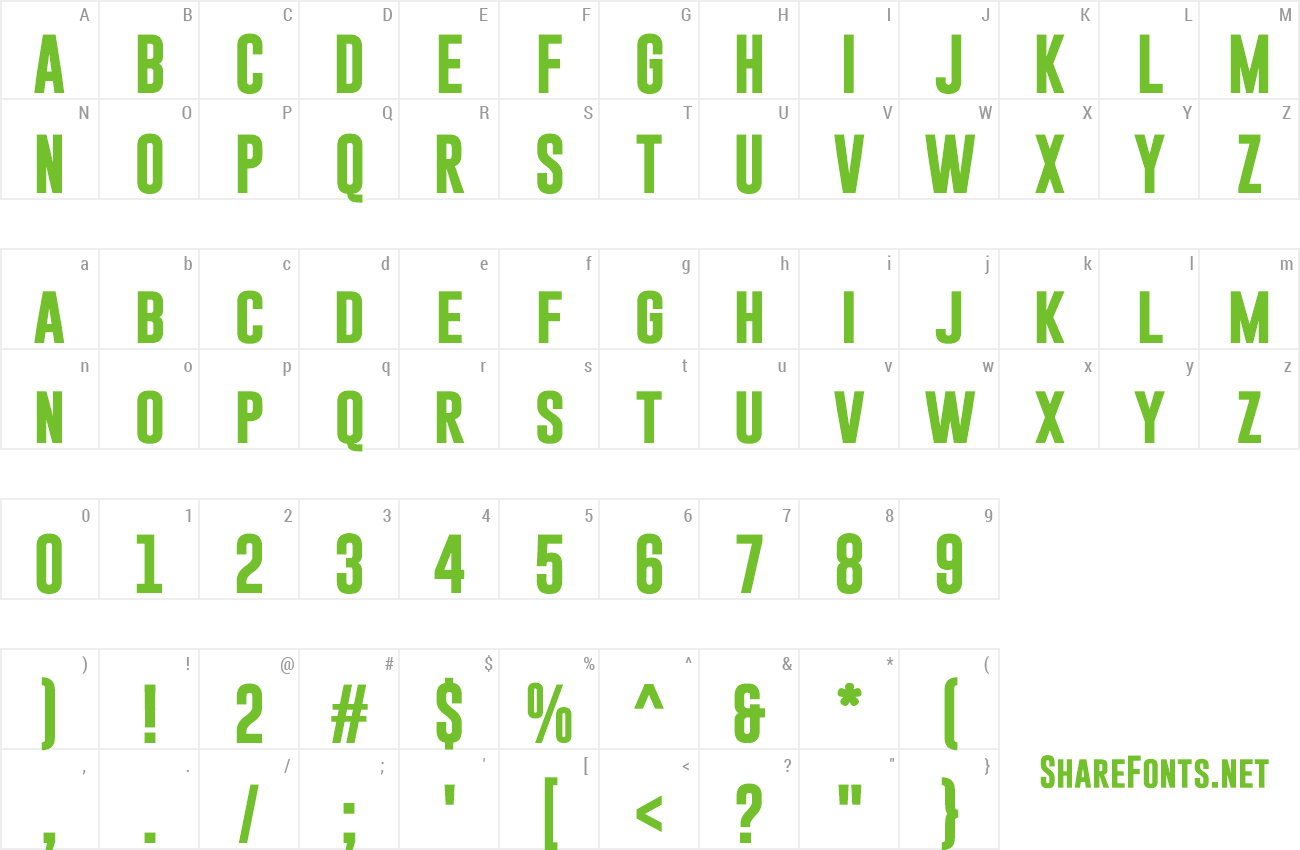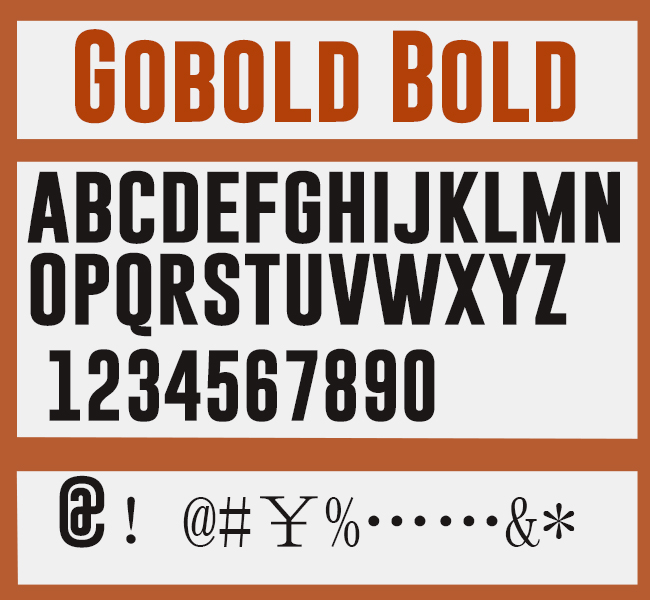
Gobold Bold Font
Gobold Bold Font - Web a stunning elegant sans serif font, gobold font update 2, added 4 family [extra2 regular and italic, cuts regular.